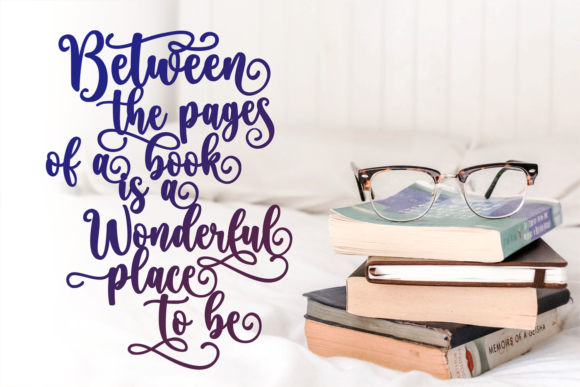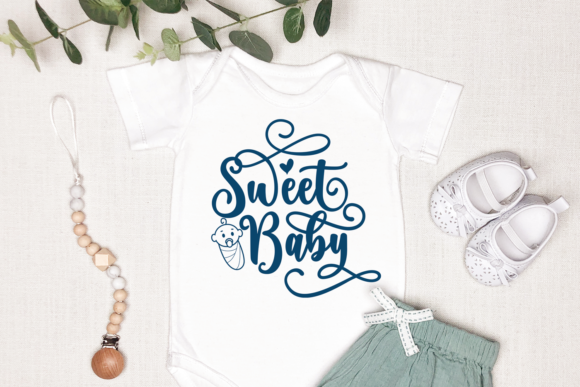
Secret Admirer Font
db-ku.com - Script & Handwritten -- Secret Admirer is a beautiful, flowing handwritten font. It looks stunning on wedding invitations, thank you cards, quotes, greeting cards, logos, business cards and every other design which needs a handwritten touch.